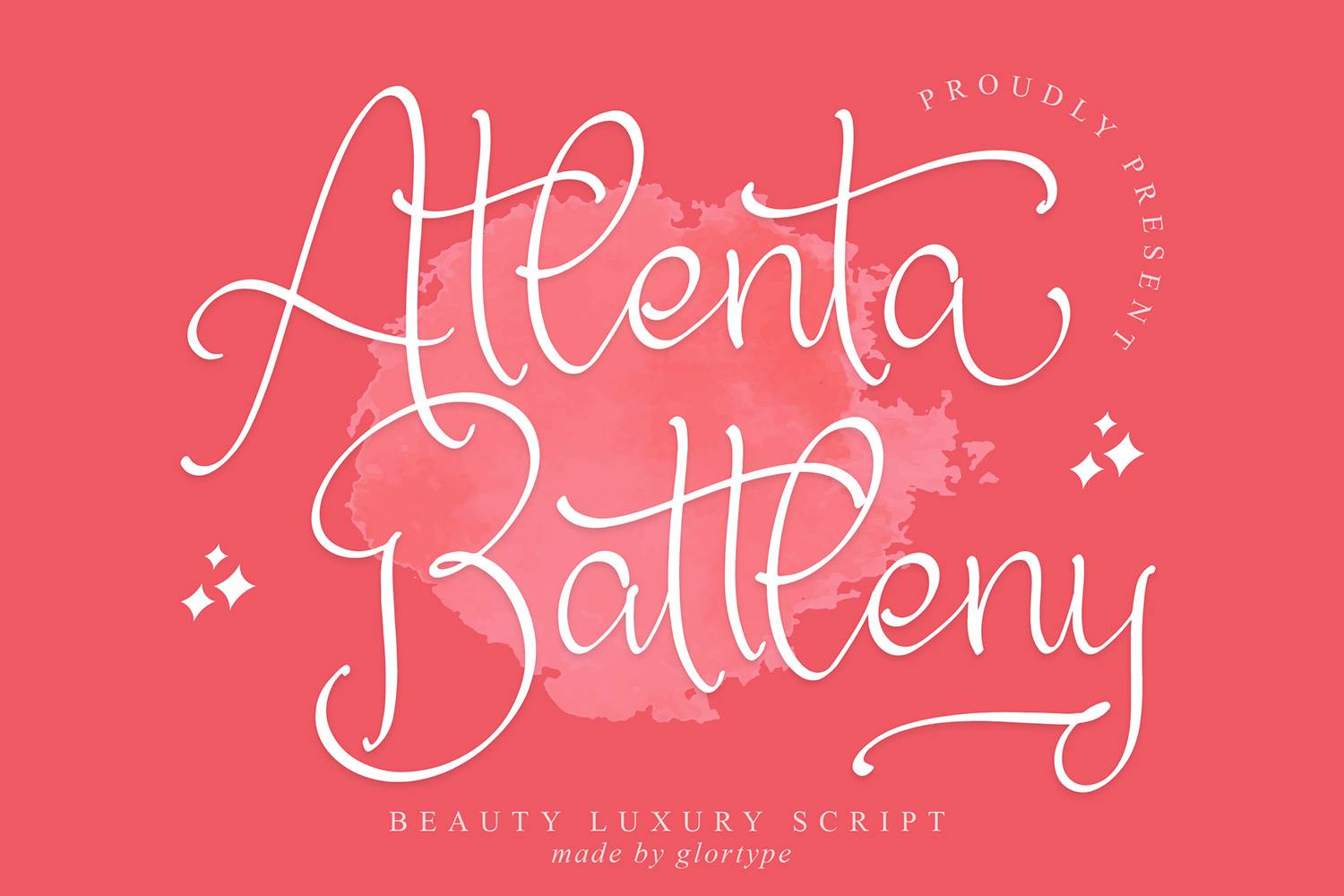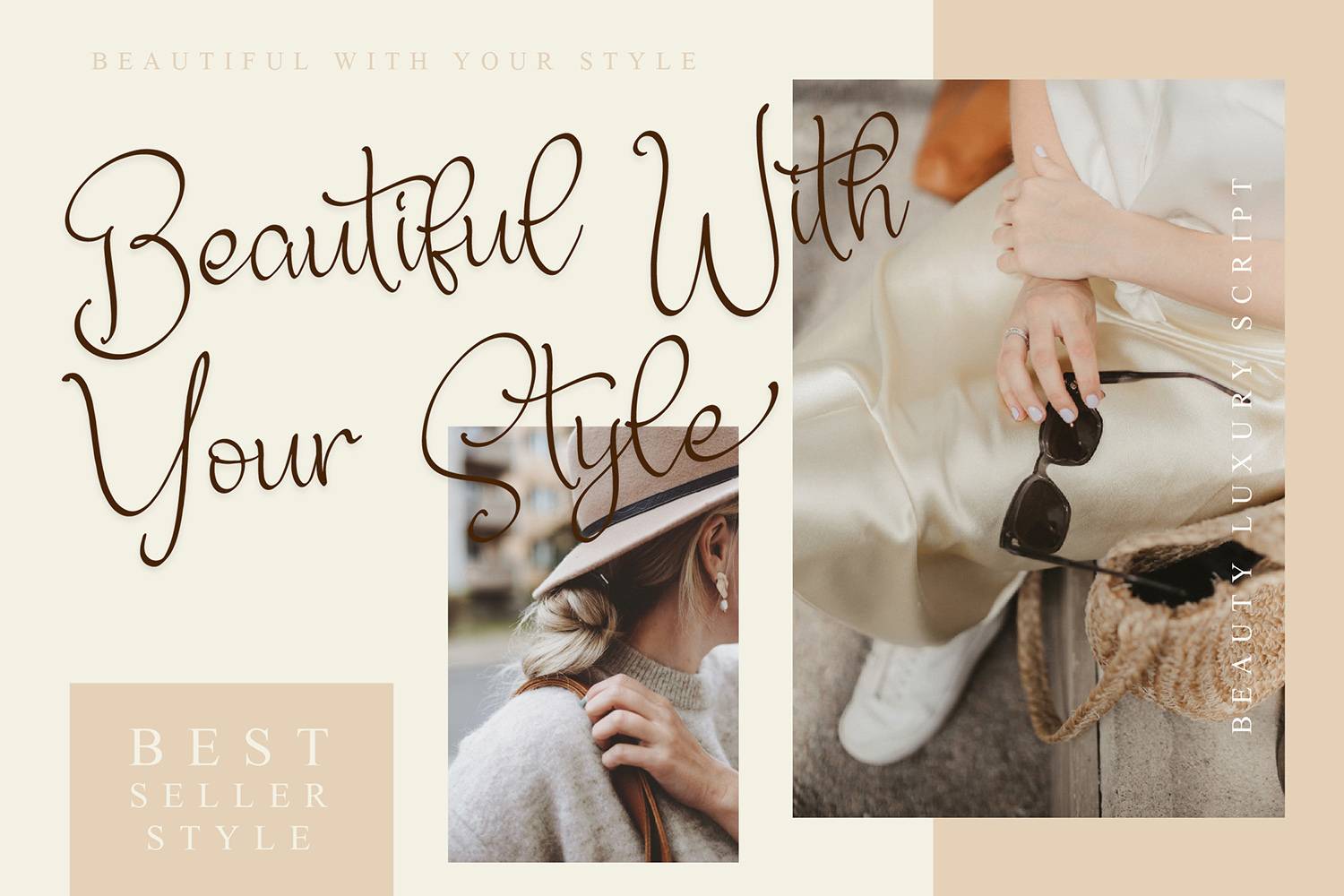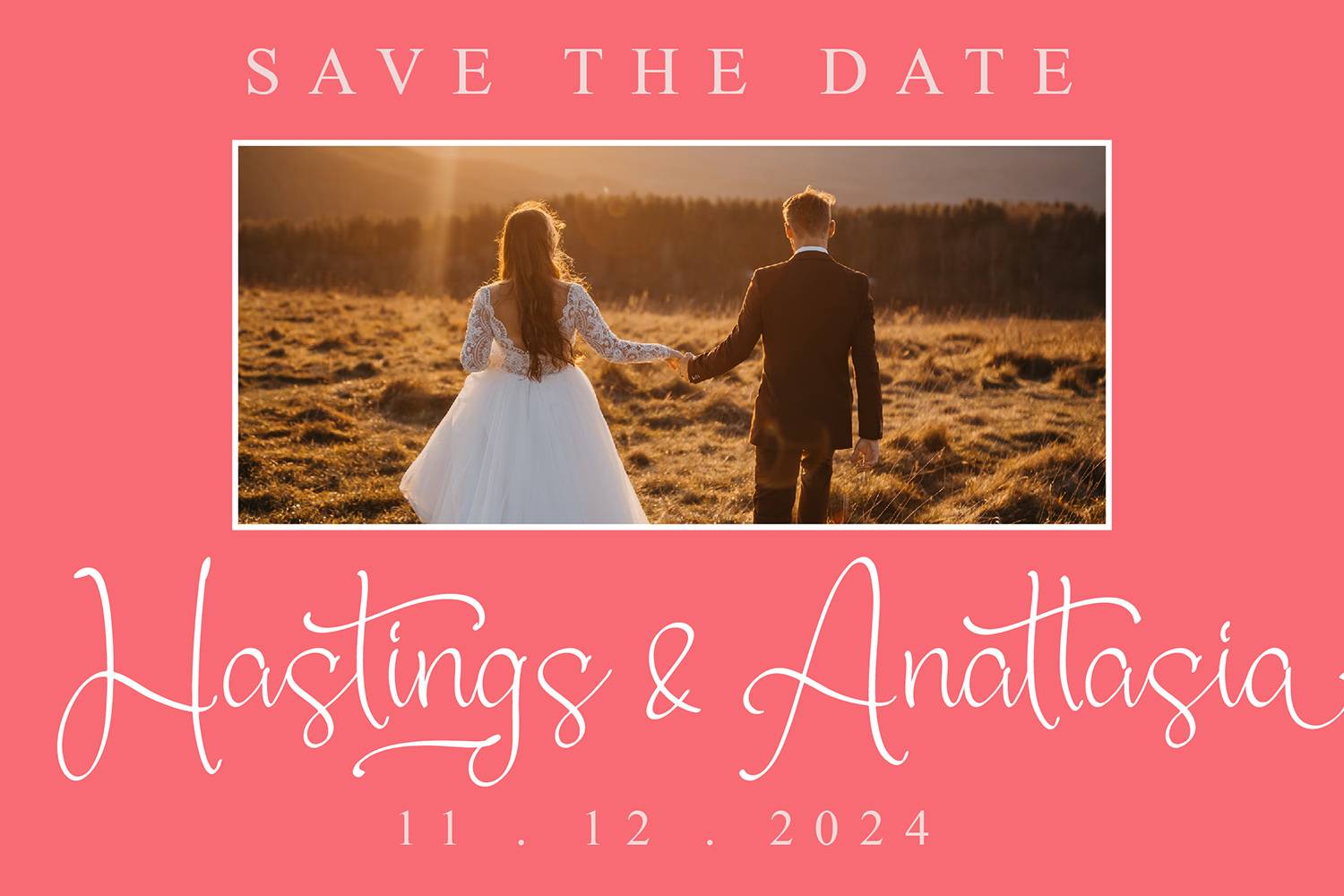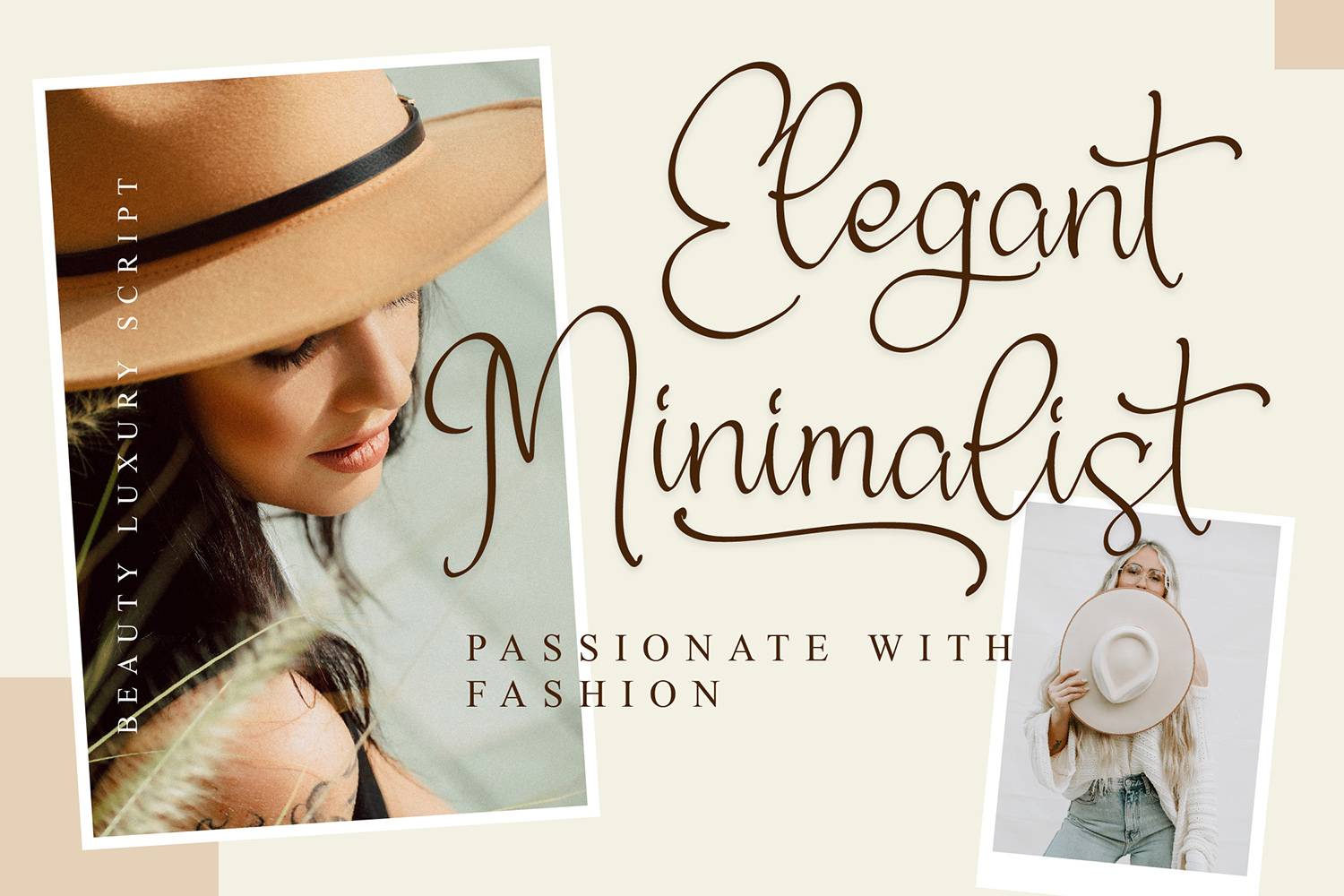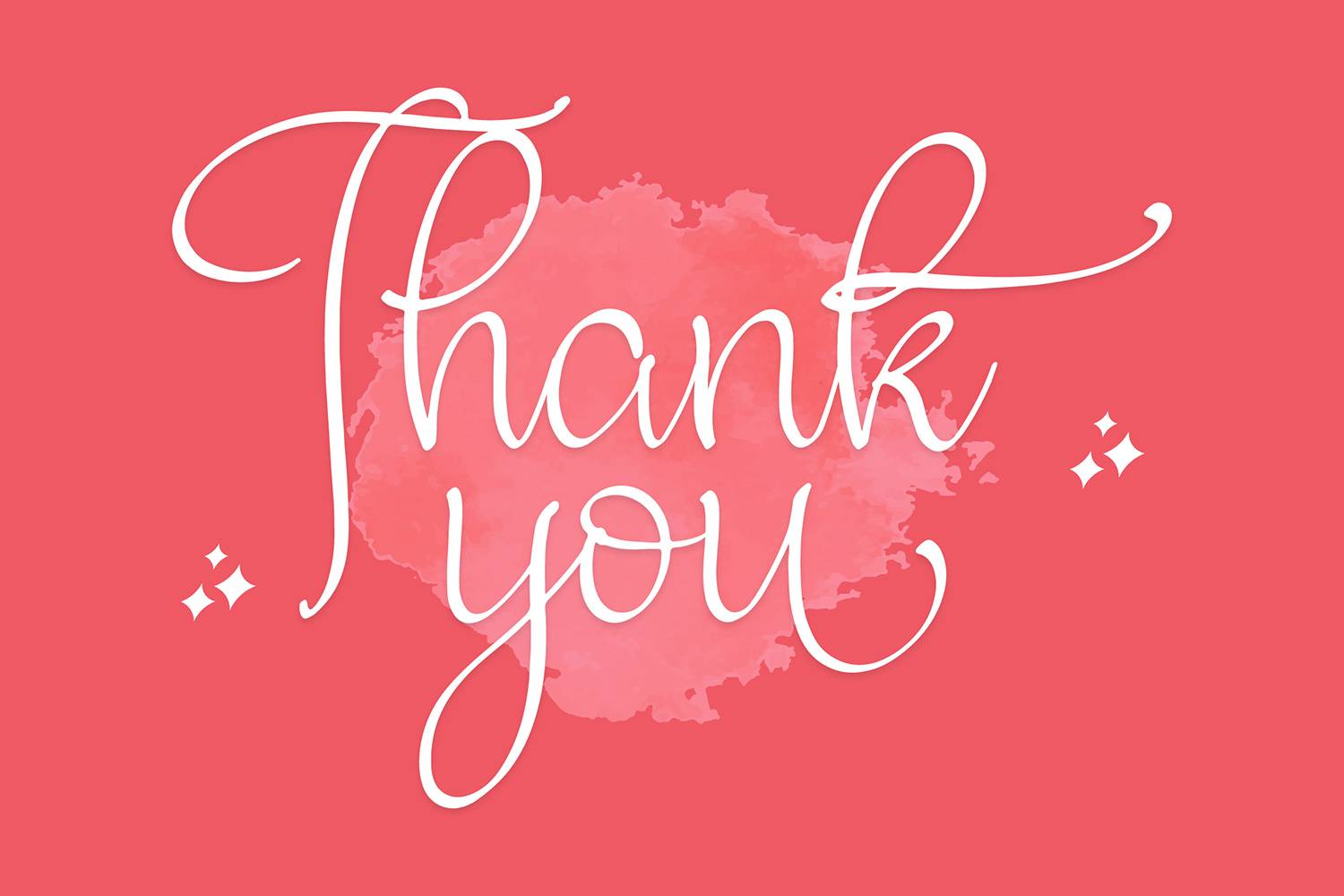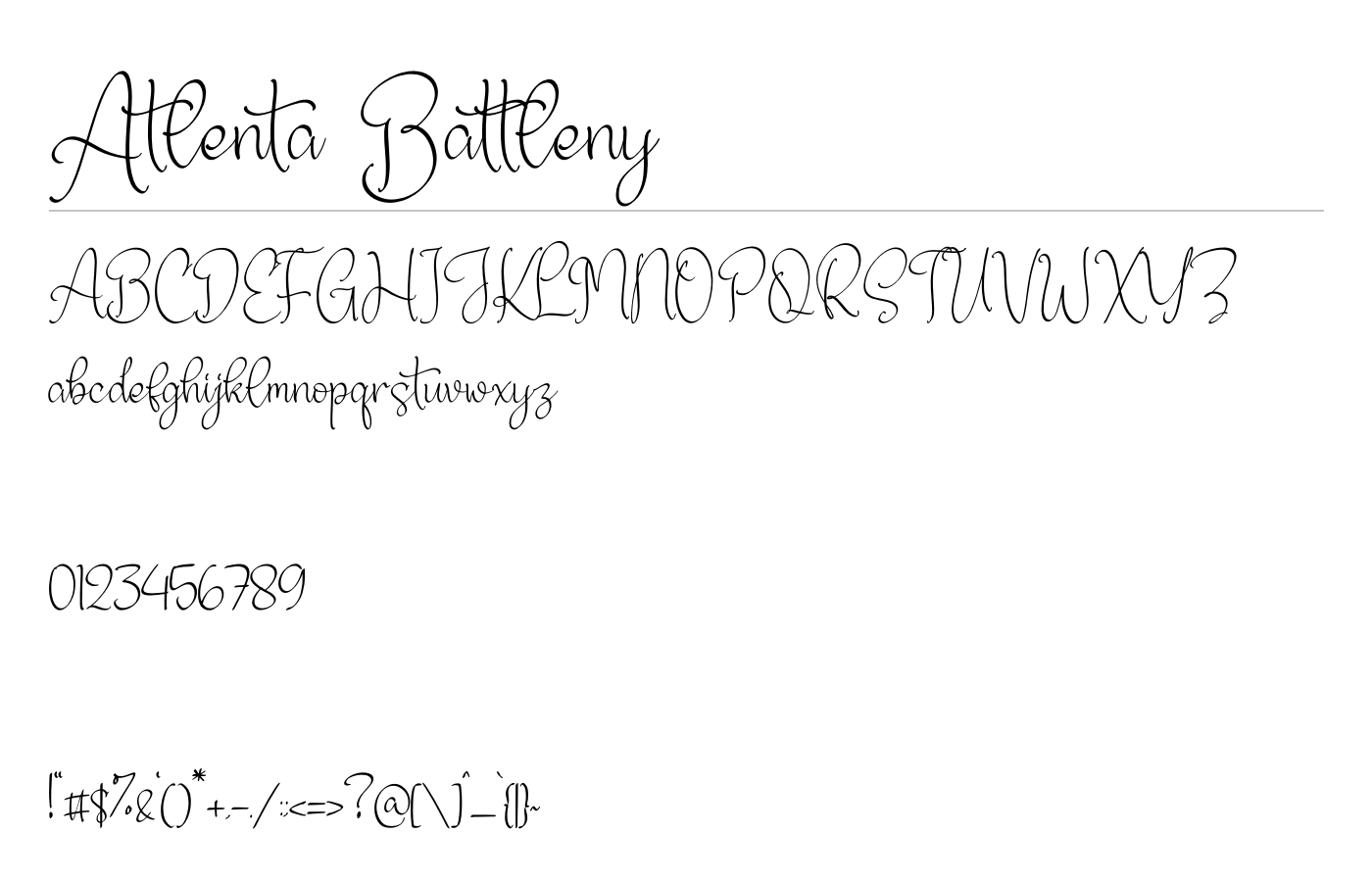
Atlenta Battleny is a delicate script font with a light, airy feel, featuring thin, flowing lines and elegant loops that give it a hand-drawn, whimsical charm. Its slender letterforms and graceful curves make it perfect for romantic, feminine branding, invitations, or creative projects seeking a sophisticated yet playful touch. This font works beautifully in headlines or decorative text where a soft, stylish personality is desired.
Atlenta Battleny Font
About Atlenta Battleny Font